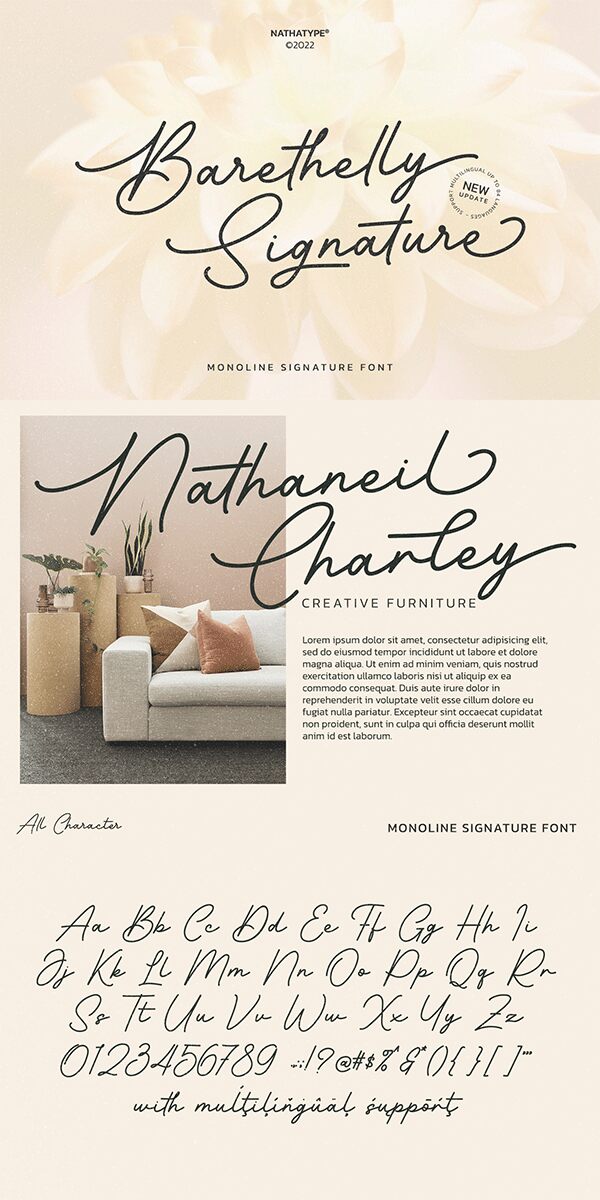
Barethelly Signature font by Din Studio is a free handwritten font whose elegance and sophisticated style can be noticed from its expressive strokes. The light font has the personal touch sought for in contemporarily applications from classic invitations to branding and advertising projects where the initial aim is to impress with beauty.
Such features can also bring new heights to printed packaging boxes, certificates, and stickers. Let Barethelly be a valuable option for online news covers and YouTube thumbnails. Its use can extend as well to include engaging daily planners/notes or cover pages for books/magazines.